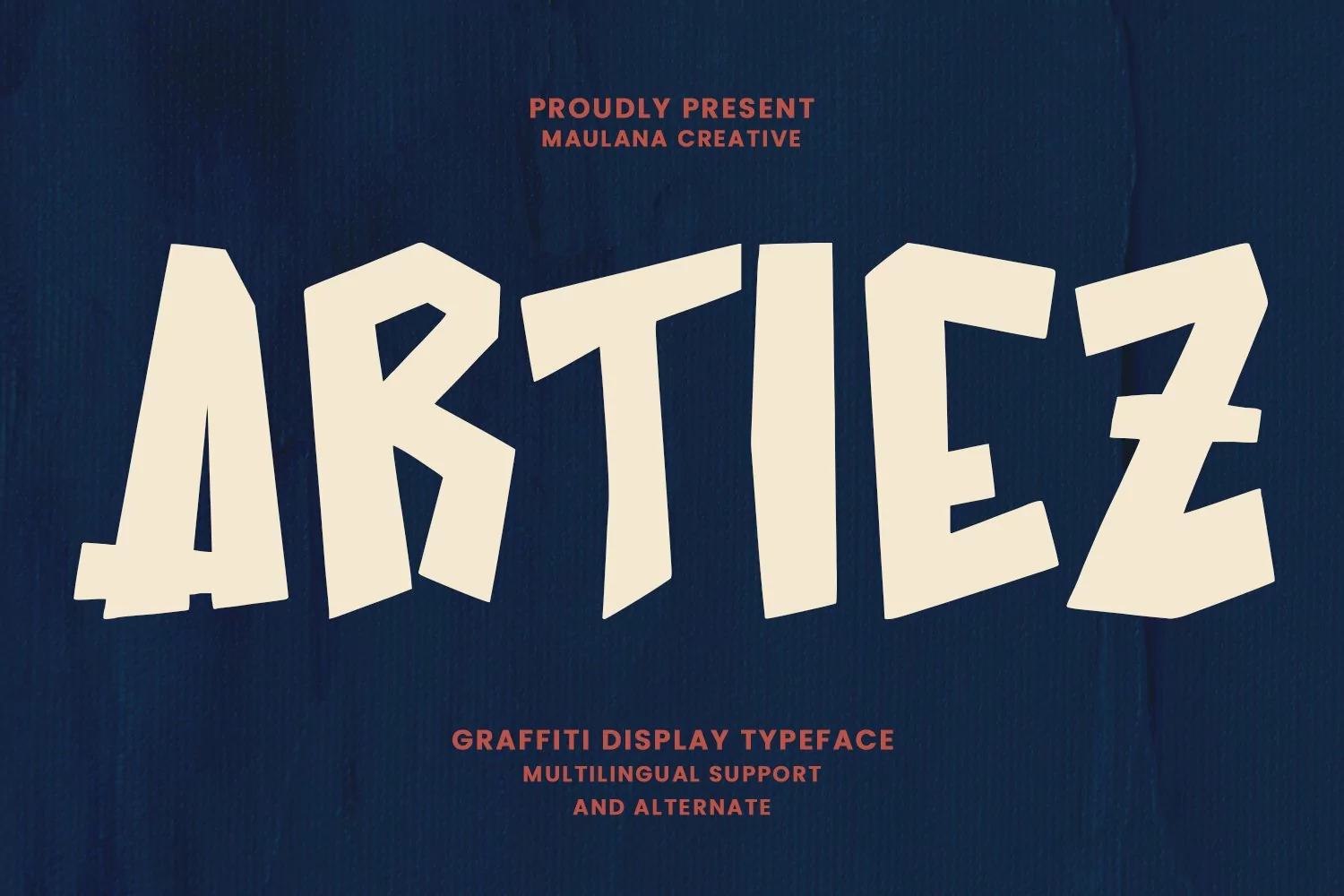
Artiez graffiti display typeface. Heavy stroke, fun character with a bit of ligatures. To give you an extra creative work. Artiez graffiti display typeface support multilingual more than 100+ language. This font is good for logo design, Social media, Movie Titles, Books Titles, a short text even a long text letter and good for your secondary text font with script or serif. Make a stunning work with Artiez graffiti display typeface.